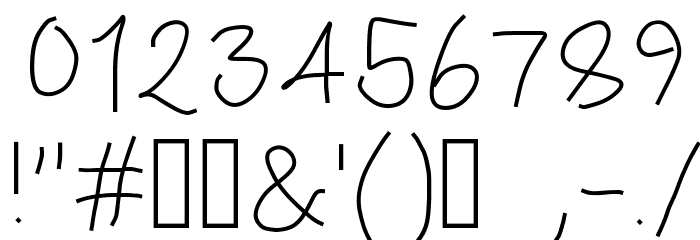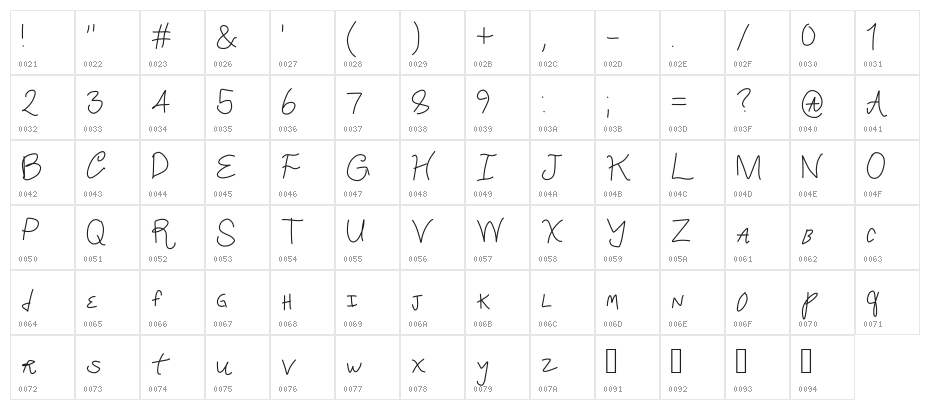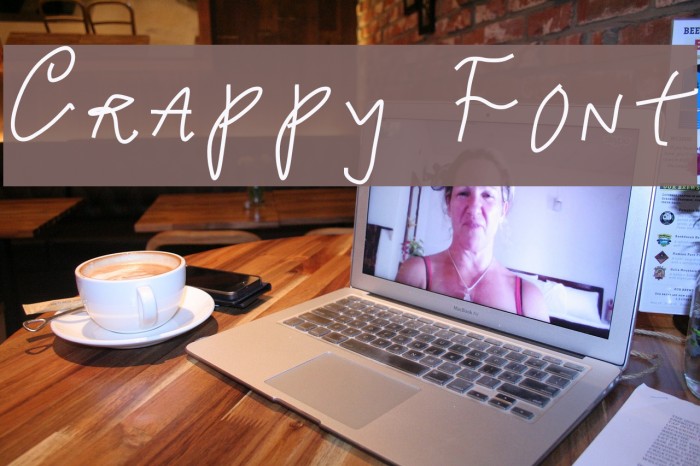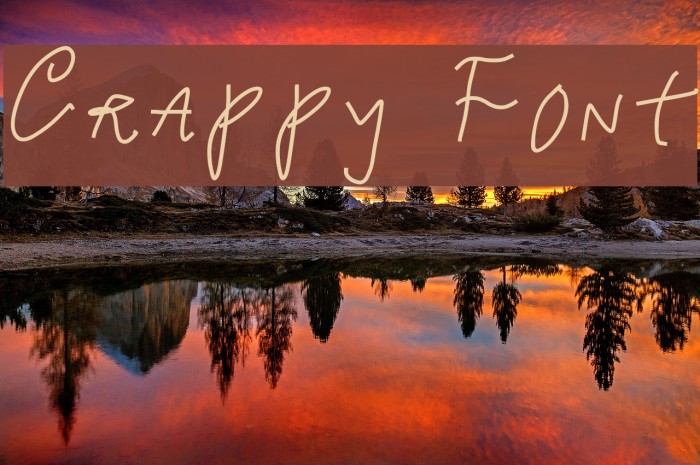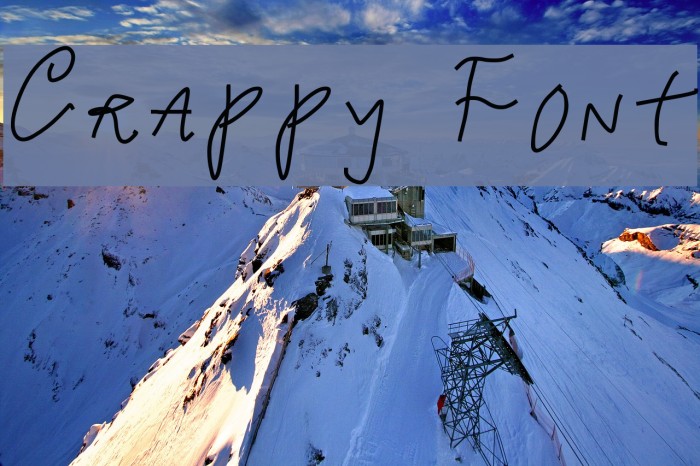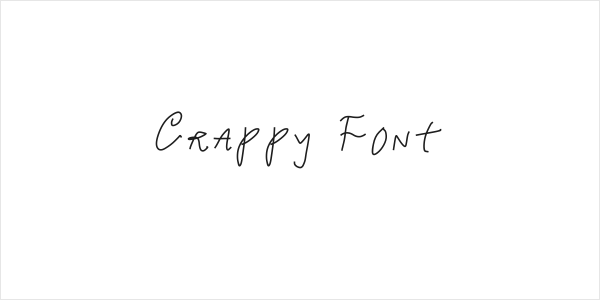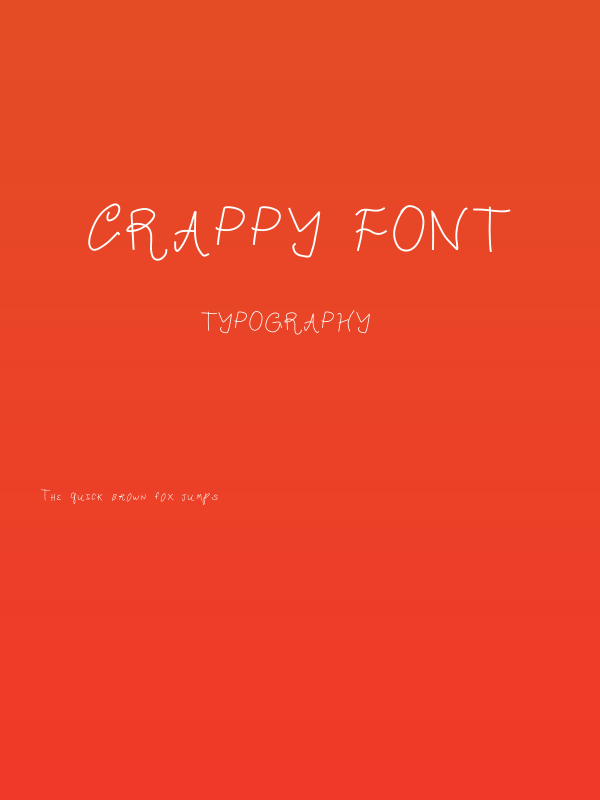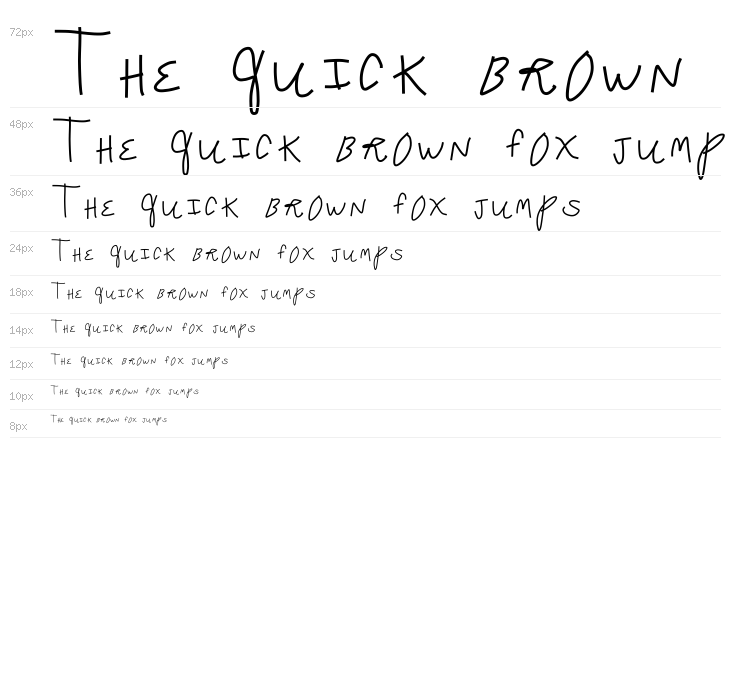
Crappy Font Font
Crappy Font Description
This font features a playful, handwritten style with a casual and informal appearance. The letters are slightly slanted, giving it a dynamic and lively feel. The strokes are uneven, adding to the hand-drawn aesthetic. The uppercase and lowercase letters maintain a consistent style, with rounded edges and a whimsical touch. The numbers and special characters follow the same playful design, making this font suitable for creative projects. The overall look is approachable and friendly, ideal for designs that aim to convey a personal or informal tone.
Overall StyleCasual
Use CaseHeadlines, Informal text, Creative projects
Proposed ProjectsIdeal for greeting cards, children's books, casual invitations, and personal blogs.